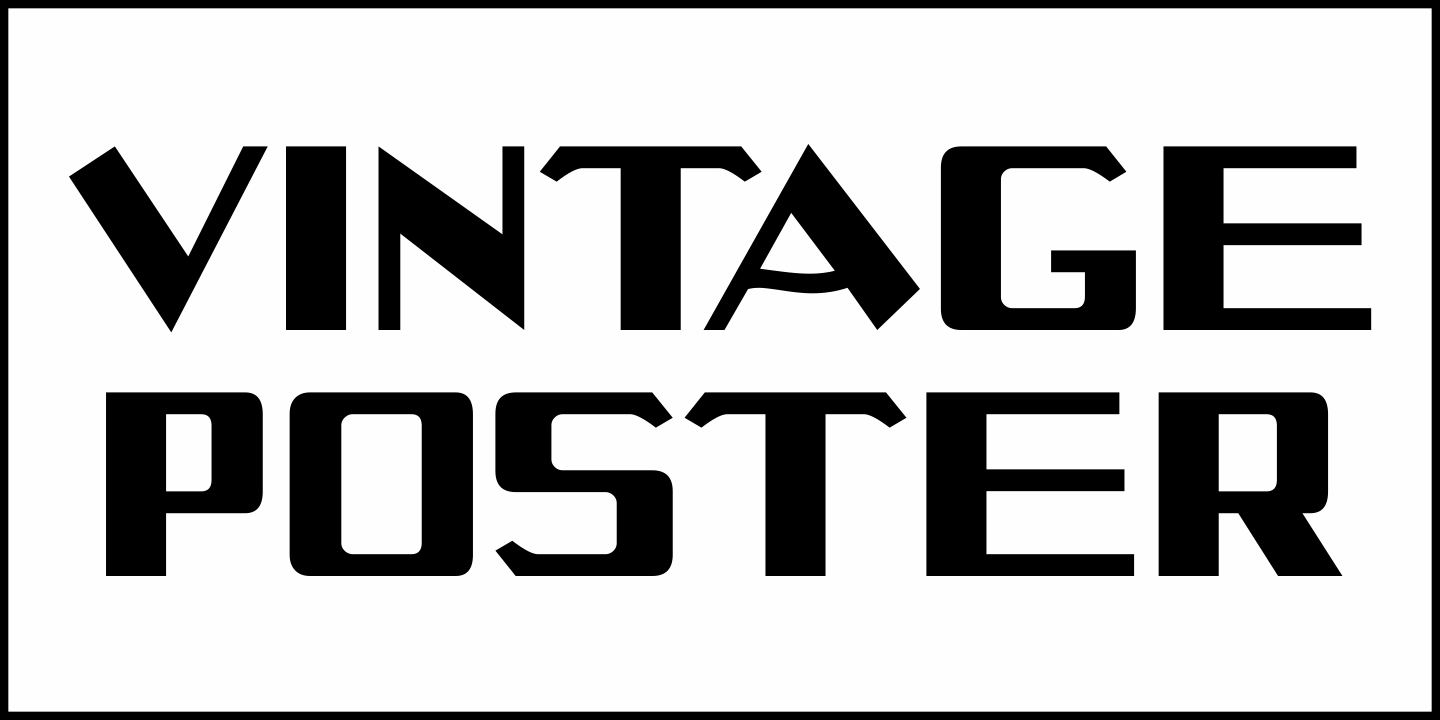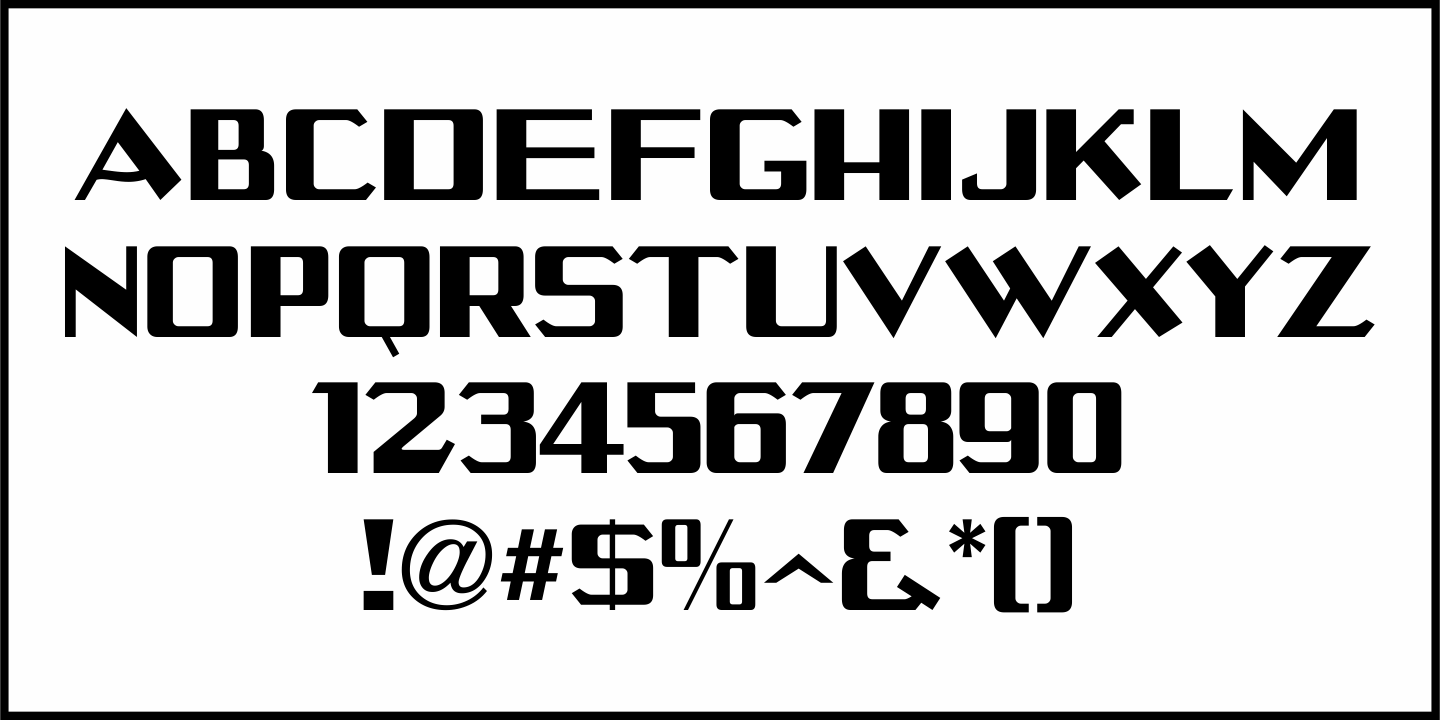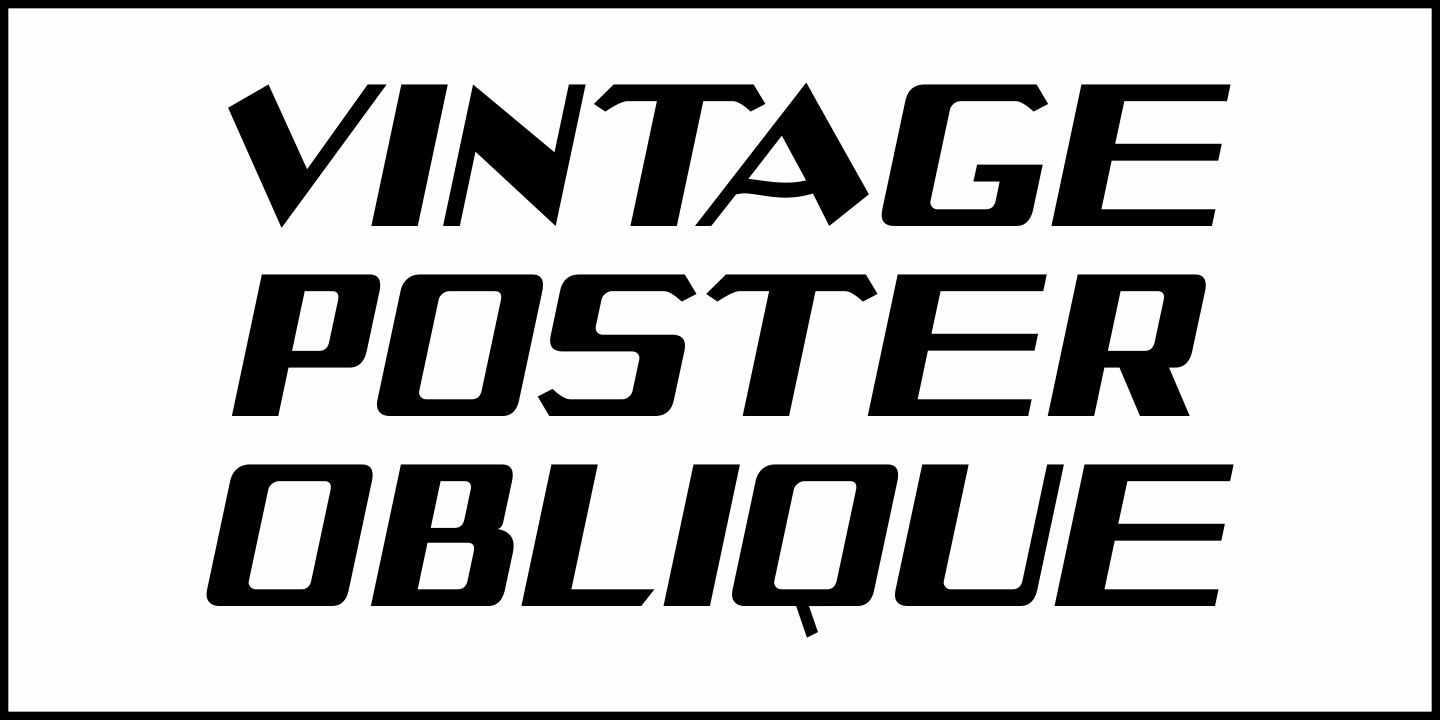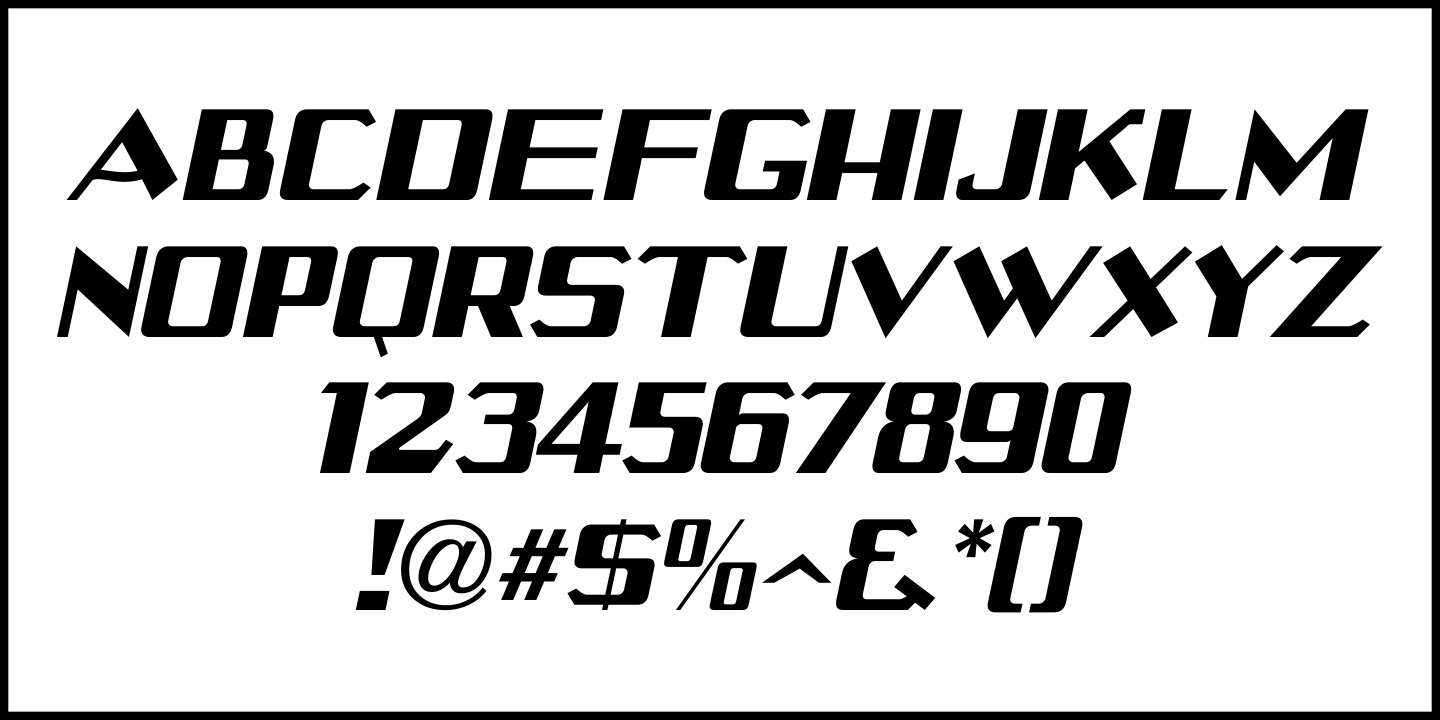
Vintage Poster
Modeled from an example in the book 'Lettering' by Harry B. Wright (1950), the poster alphabet shown was reminiscent of the kind of style used in the early 1900s by sign painters and show card artists.
Vintage Poster JNL is available in both regular and oblique versions.
Vintage Poster JNL Regular by Jeff Levine Fonts